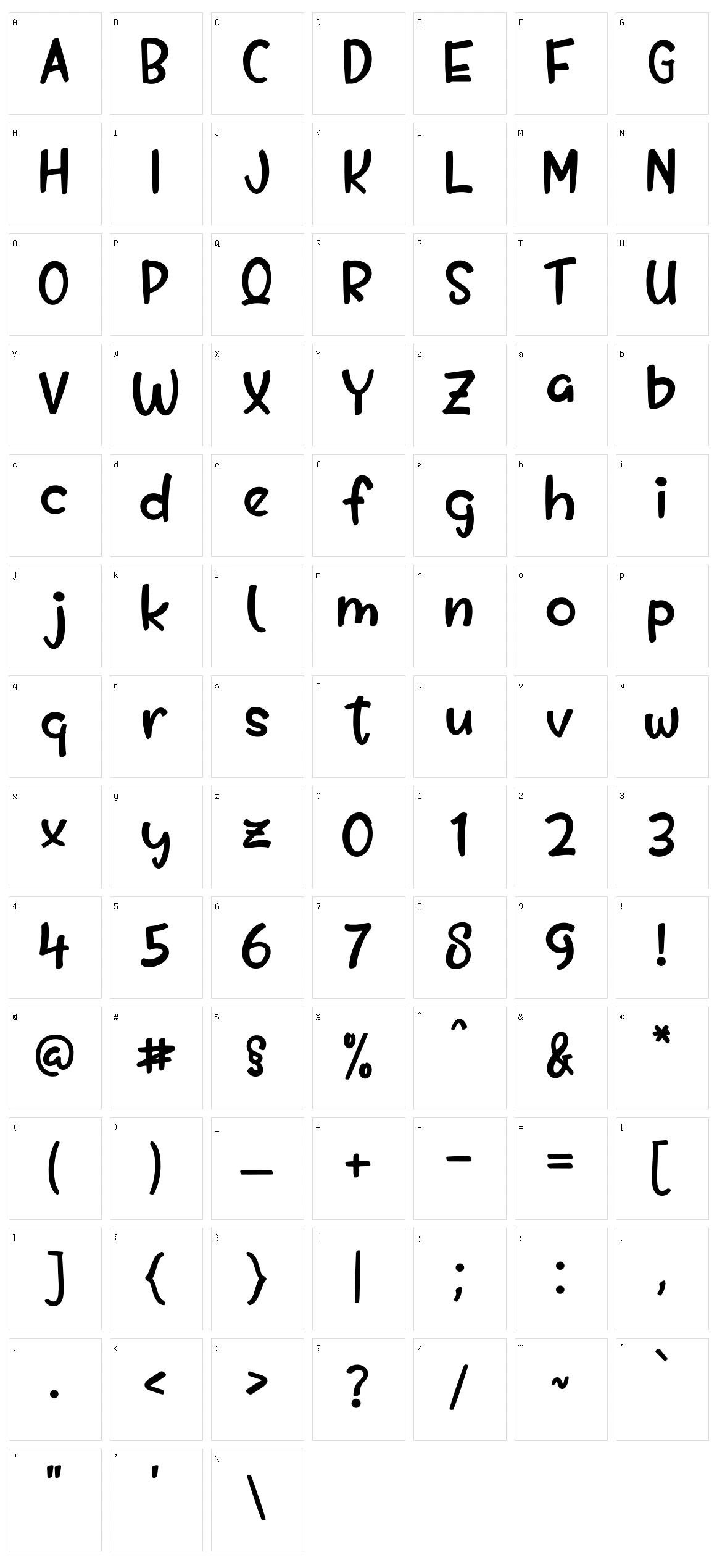
The free font Drawing Kids is carefully designed by Perspectype Studio - Letterena.com, showcasing a thoughtful balance of creativity and usability and falls under the Cartoon font style. When you download the ZIP file, it contains only 29.49 KB of font files, making it lightweight and quick to download. Please review the license details below to understand permitted usage and distribution rights. If license information is not available, we recommend using this font for personal projects only or contacting the author directly for commercial usage permissions.